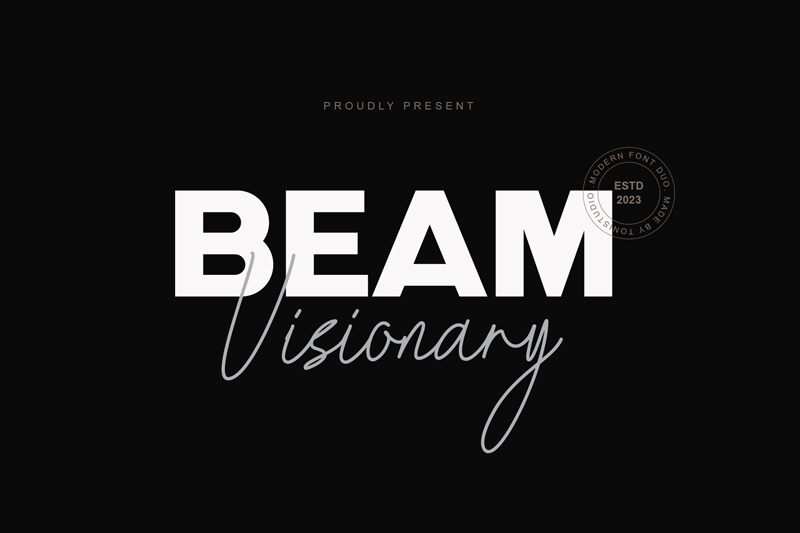
Beam Visionary Signature
Beam Visionary Signature, designed by ToniStudio, is an exquisite handwritten font that emanates elegance and creativity. With its extra-light weight and condensed width, this font exudes a unique charm that is perfect for projects requiring a touch of sophistication. Whether it's wedding invitations, high-end fashion branding, or luxurious product packaging, this font adds a refined and personalized touch to any design. Its flowing yet precise strokes capture the essence of handcrafted artistry, making it an ideal choice for creating stunning visual experiences. Elevate your projects with Beam Visionary Signature and leave a lasting impression.